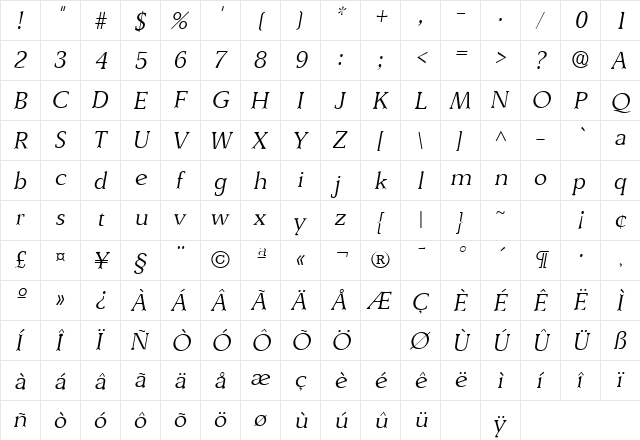
DerringerLH Italic
Design Context for DerringerLH Typeface
DerringerLH offers clean, dependable letterforms without strong stylistic allegiance, making it a practical choice for designers who need flexibility. The slanted form adds forward momentum and visual energy.
Pro Tip: Use DerringerLH for emphasis, pull quotes, and subheadings where its slanted energy can add rhythm to the layout.